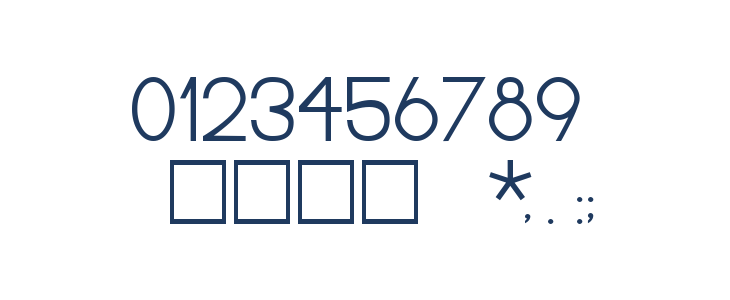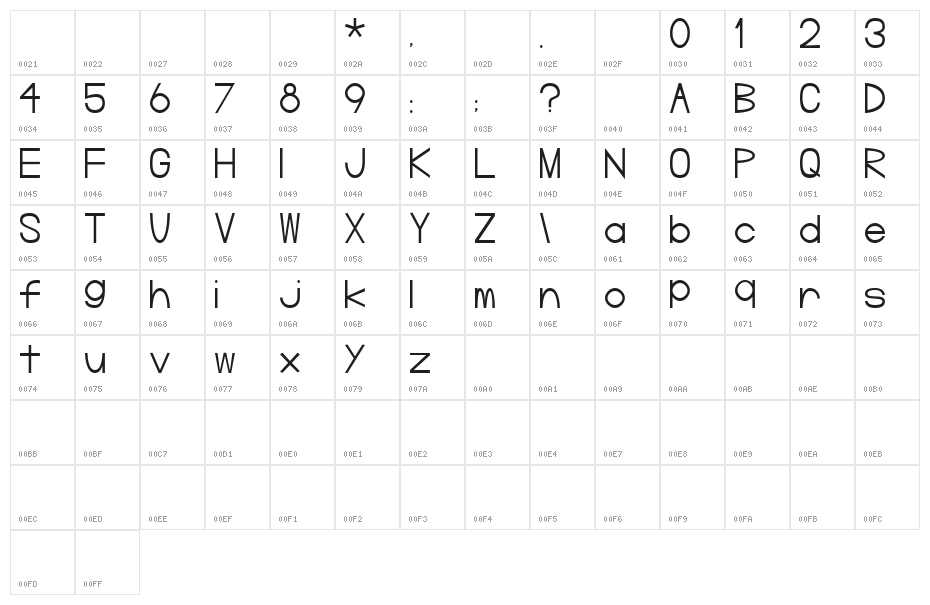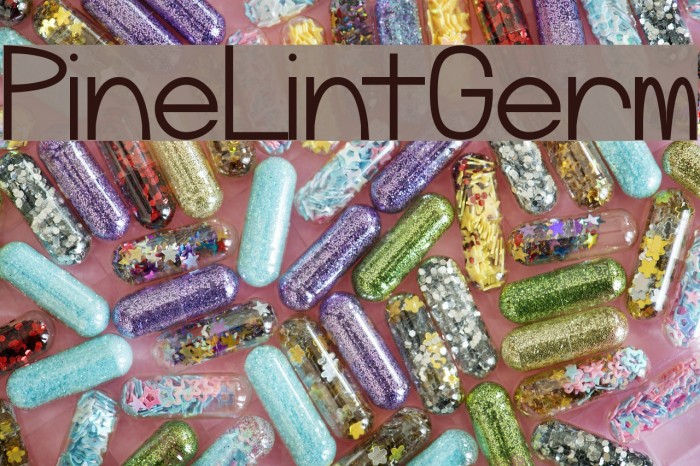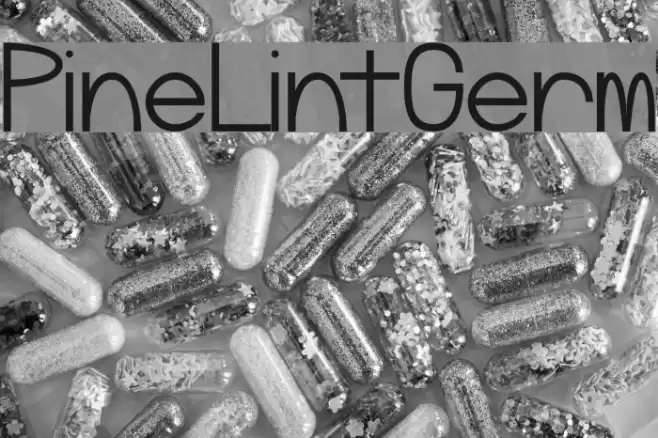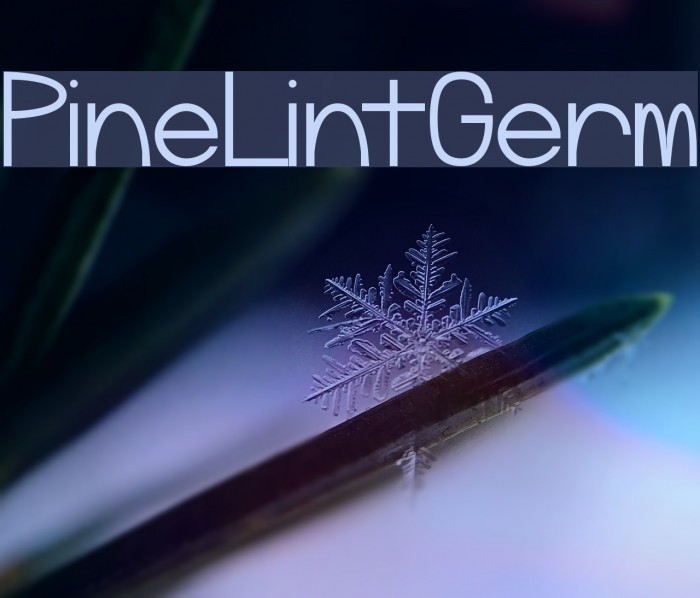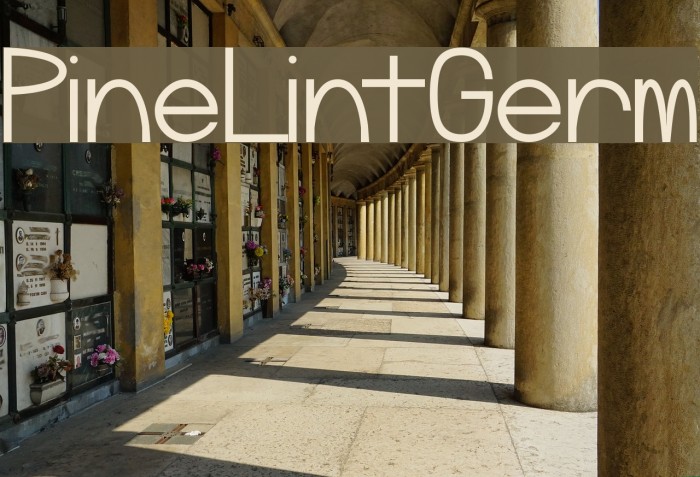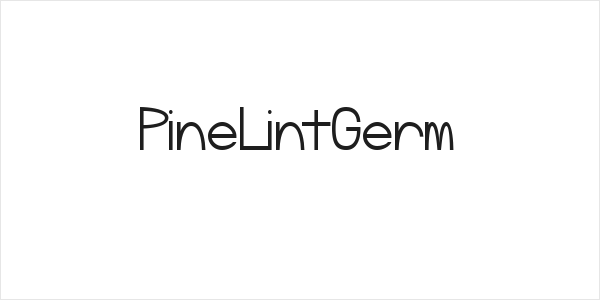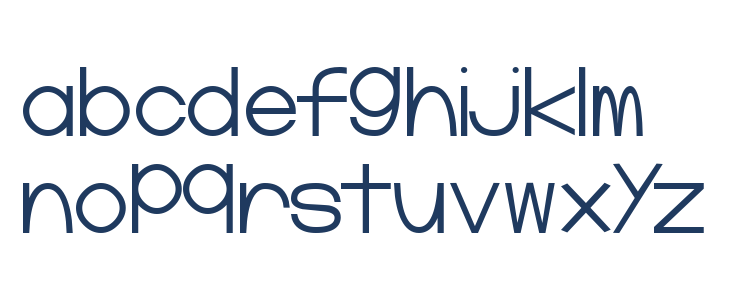
PineLintGerm Font
PineLintGerm Description
This font features a geometric and modern design with clean, straight lines and a uniform stroke width. The characters are constructed with a consistent height and width, giving it a balanced and orderly appearance. The uppercase letters are bold and prominent, while the lowercase letters maintain a similar structure with slightly softer curves. The numerals are clear and easy to read, matching the overall style of the alphabet. Special characters are included, maintaining the same geometric style. This font is suitable for projects that require a contemporary and minimalist aesthetic.